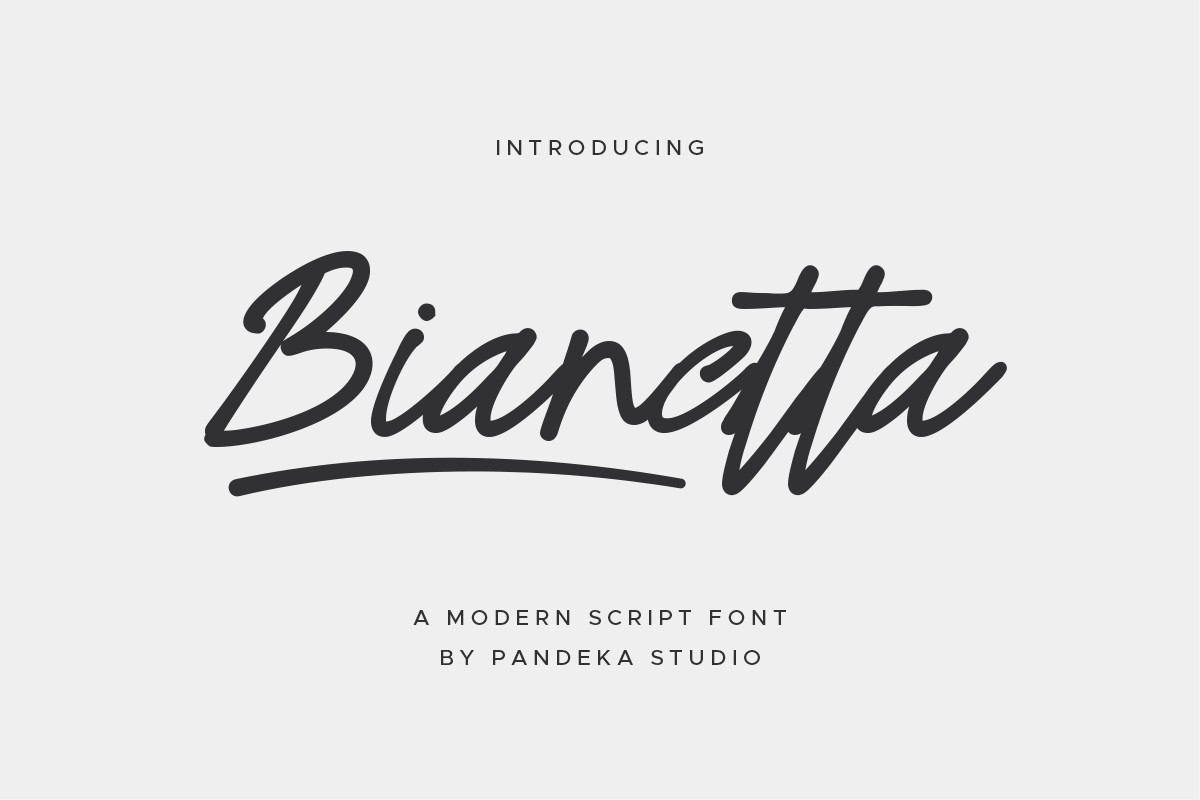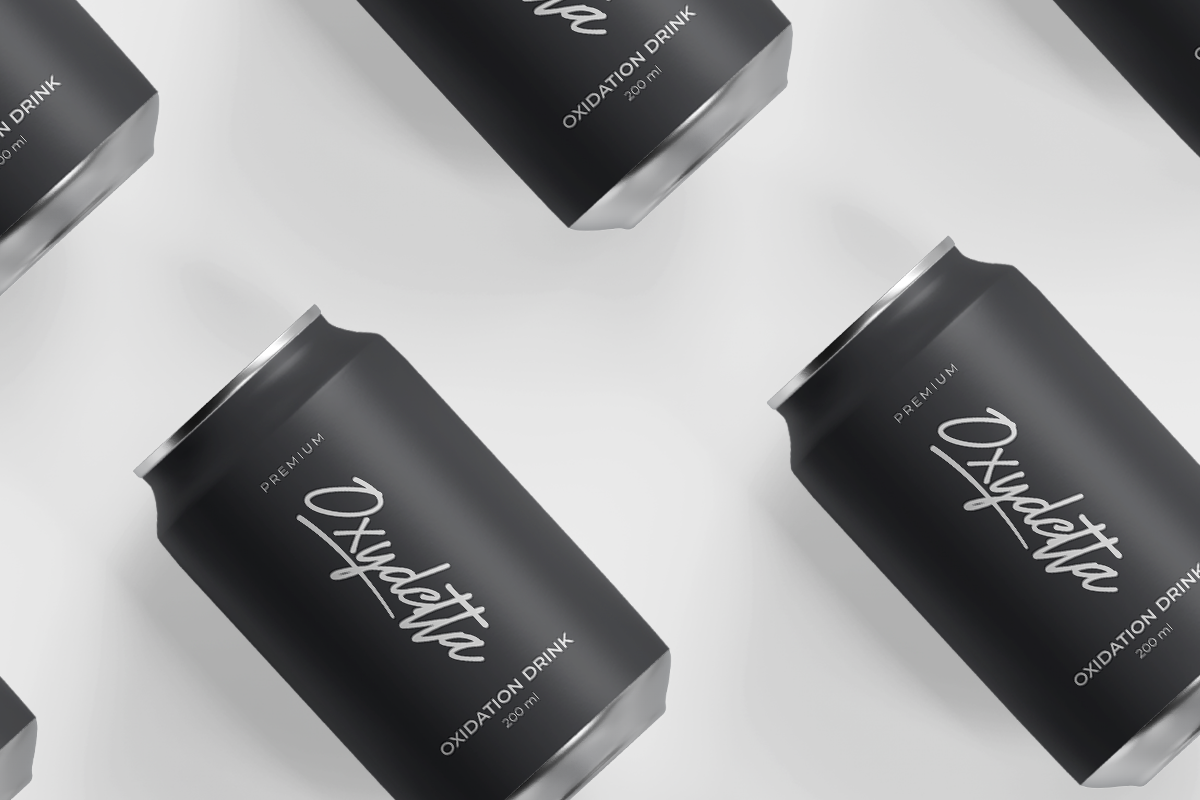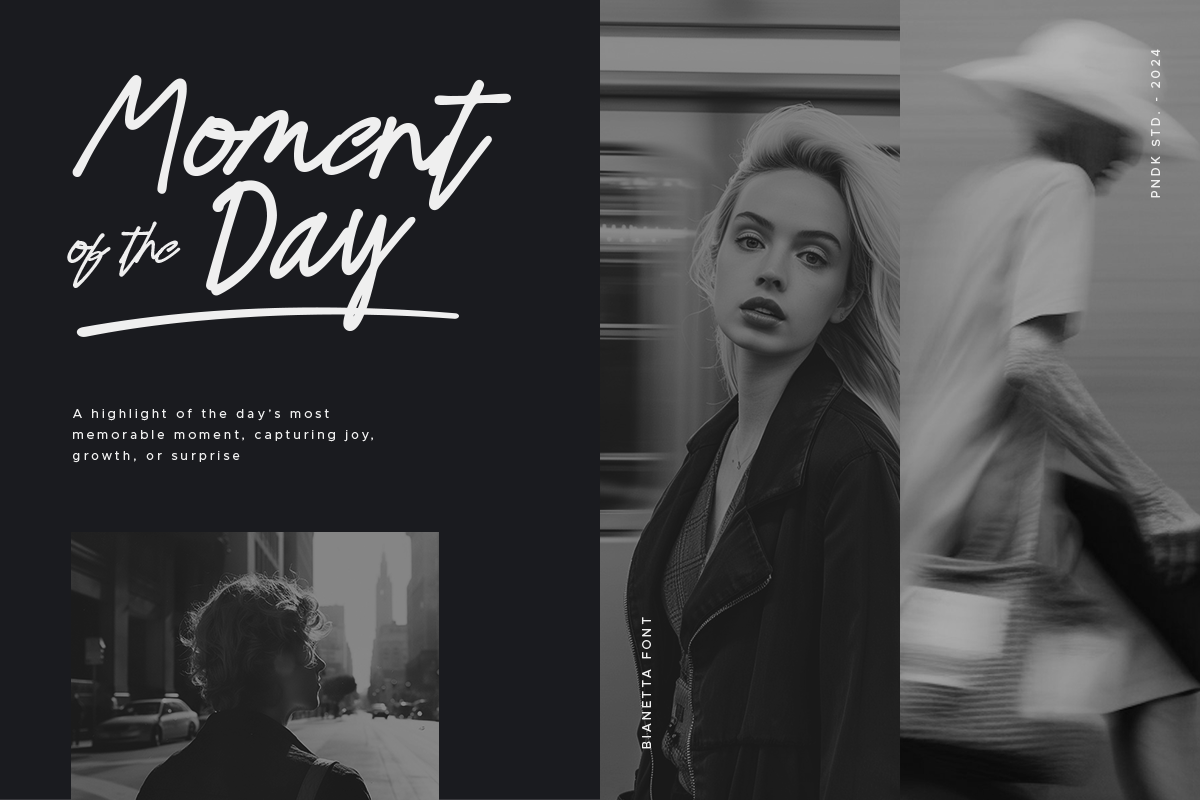
Bianetta – Script Font is a modern script font with elegant lettering and stylish calligraphy, designed to flow effortlessly like smooth handwriting. This font is good on invitation, greeting cards, or other design that needs a touch of elegance with simplicity.
Bianetta